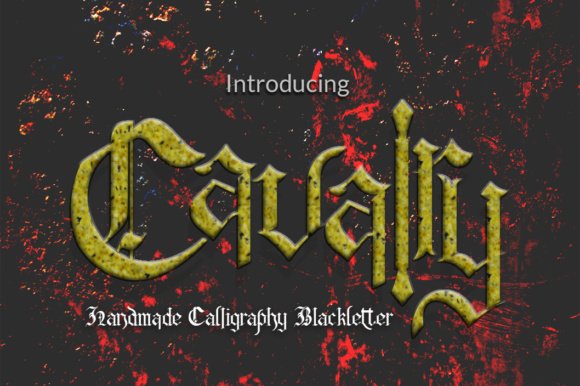
The Ride Begins: Unleashing the Power of Cavalry Font
Imagine yourself on a dusty trail, the wind in your hair, and the sound of hooves pounding the earth. The nostalgia washes over you as you envision a bygone era, where rugged cowboys and brave soldiers rode into battle on majestic horses. It’s a moment that sparks creativity and fuels your imagination. And what better way to capture that essence than with a font that embodies the spirit of adventure and freedom?
Enter the Cavalry Font, a beautifully crafted blackletter font that’s perfect for designers looking to add a touch of rustic charm to their projects. Inspired by the mighty army horses that once roamed the battlefields, this handmade font is designed to evoke a sense of nostalgia and adventure. Whether you’re working on a throwback design, a rustic logo, or a vintage-inspired poster, the Cavalry Font is the perfect companion to help you bring your vision to life.
Cavalry Font Key Features
- Unique Characteristic: Western and Eastern European Language Support Cavalry Font supports a wide range of languages, including Western and Eastern European languages, making it an ideal choice for international publications and websites.
- Font Style and Weight: The font is available in multiple styles and weights, including Regular, Bold, Italic, and Bold Italic, providing users with a range of options to suit their design needs.
- Scalability: Cavalry Font is designed to be highly scalable, meaning it can be used at various sizes and resolutions without losing its clarity or legibility.
- Professional Look and Feel: The font’s classic design and refined typography give it a professional look and feel, making it suitable for use in corporate communications, publications, and websites.
Cavalry Font Review
I recently had the chance to work with the Cavalry Font, and I must say it’s a unique and interesting choice. Here are my thoughts on what works well and what doesn’t.
- The Cavalry Font has a strong, bold aesthetic that can add a touch of sophistication to any design.
- It’s a great choice for titles and headings, as it really makes the text stand out.
- The font is highly customizable, with a wide range of weight and style options available.
- The font can be a bit overwhelming if used too extensively, so it’s best to use it sparingly to avoid visual fatigue.
- Some of the characters may not render correctly at smaller font sizes, which can be a problem for responsive designs.
Overall, the Cavalry Font is a solid choice for designers looking for a bold, eye-catching font. While it may have some limitations, it’s a great option for adding some visual interest to your designs. Just be sure to use it thoughtfully and with consideration for your audience.
Tips for Getting the Most Out of Cavalry Font
Use the Cavalry Font to add a touch of elegance and sophistication to your designs. Experiment with different font sizes and colors to create visual interest. Consider pairing the font with other elegant fonts to create a cohesive look.
The Cavalry Font is perfect for:
- Formal event invitations and announcements
- Wedding websites and social media graphics
Alternatives to Cavalry Font
Carolyna Pro is a modern sans-serif font that offers a similar feel to Cavalry Font. It features clean lines, geometric shapes, and a neutral tone, making it suitable for a wide range of designs. Carolyna Pro is ideal for use in branding, advertising, and digital products where a sleek and contemporary look is desired. Compared to Cavalry Font, Carolyna Pro has a more modern and streamlined feel, while Cavalry Font has a more rustic and vintage aesthetic.